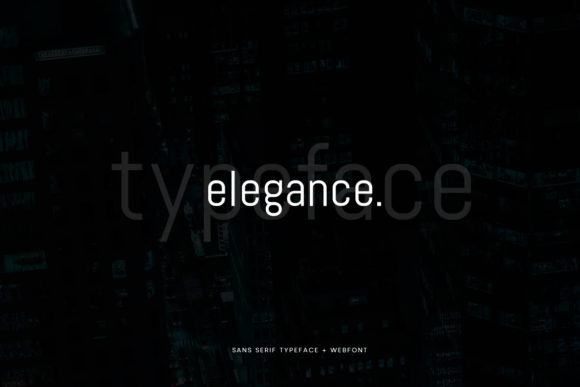
Introducing Bobcat Font: The Ultimate Sans Serif for Modern Designs
Are you a designer or crafter looking for a clean and simple sans serif font to elevate your creative projects? Look no further than Bobcat Font! This versatile and modern font is perfect for a wide range of applications, from logos and quotes to posters and headlines. In this article, we’ll dive into the world of Bobcat Font, exploring its features, benefits, and uses.
What is Bobcat Font?
Bobcat Font is a sleek and contemporary sans serif font designed to complement any design project. Its clean lines, simple shapes, and elegant curves make it an excellent choice for designers seeking a modern and sophisticated look. Whether you’re working on a logo, brochure, or social media graphics, Bobcat Font is sure to impress.
Key Features of Bobcat Font
- Clean and Simple Design: Bobcat Font boasts a minimalist design that exudes elegance and sophistication.
- Sans Serif Style: The font’s sans serif style makes it perfect for digital and print applications, ensuring clarity and readability.
- Versatile: Bobcat Font can be used for a wide range of projects, from logos and branding to posters, headlines, and more.
- Easily Readable: The font’s clear and concise design ensures that your message is conveyed effectively, even at small sizes.
Benefits of Using Bobcat Font
So, why choose Bobcat Font for your design projects? Here are just a few benefits:
- Enhances Brand Identity: Bobcat Font’s modern design helps create a strong brand image, setting your business apart from the competition.
- Boosts Readability: The font’s clean design ensures that your message is conveyed clearly, reducing eye strain and increasing engagement.
- Customizable: Bobcat Font can be easily customized to fit your brand’s unique style, making it a versatile addition to your design toolkit.
- Time-Saving: With Bobcat Font, you can create professional-looking designs quickly and efficiently, saving you time and effort.
Using Bobcat Font in Design Projects
Bobcat Font is an incredibly versatile font that can be used in a wide range of design projects. Here are some ideas to get you started:
- Logo Design: Create a modern and memorable logo that showcases your brand’s personality with Bobcat Font.
- Posters and Flyers: Use Bobcat Font to create eye-catching posters and flyers that grab attention and communicate your message effectively.
- Social Media Graphics: Elevate your social media presence with professional-looking graphics designed with Bobcat Font.
- Headlines and Titles: Add a touch of sophistication to your headlines and titles with Bobcat Font’s elegant design.
Tips for Getting the Most Out of Bobcat Font
To maximize the potential of Bobcat Font, here are some expert tips:
- Experiment with Font Sizes: Find the perfect font size to balance your design and ensure readability.
- Play with Colors: Try out different color combinations to create a unique and eye-catching design.
- Mix and Match with Other Fonts: Combine Bobcat Font with other fonts to create a distinctive and visually appealing design.
Bobcat Font is a powerful and versatile sans serif font that’s perfect for designers and crafters looking to elevate their creative projects. With its clean design, elegant curves, and wide range of applications, Bobcat Font is an excellent addition to any design toolkit. Whether you’re working on a logo, poster, or social media graphics, Bobcat Font is sure to help you create stunning designs that leave a lasting impression.